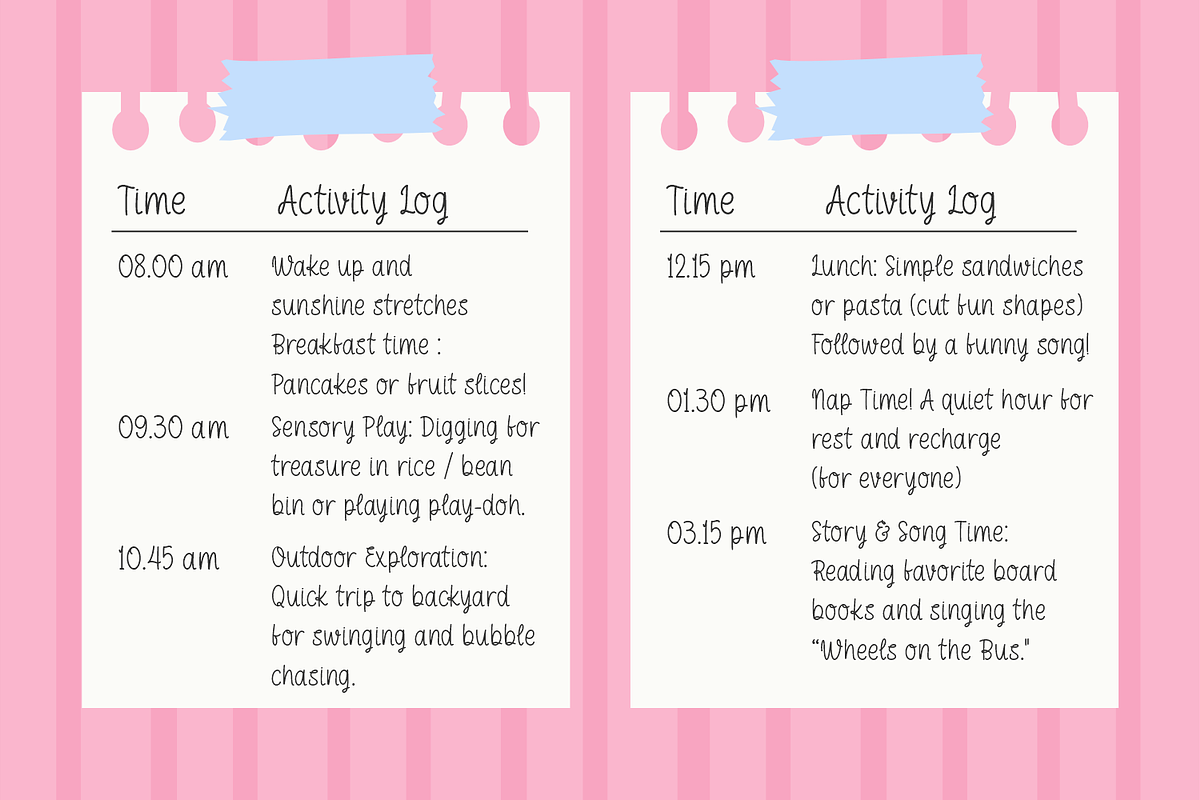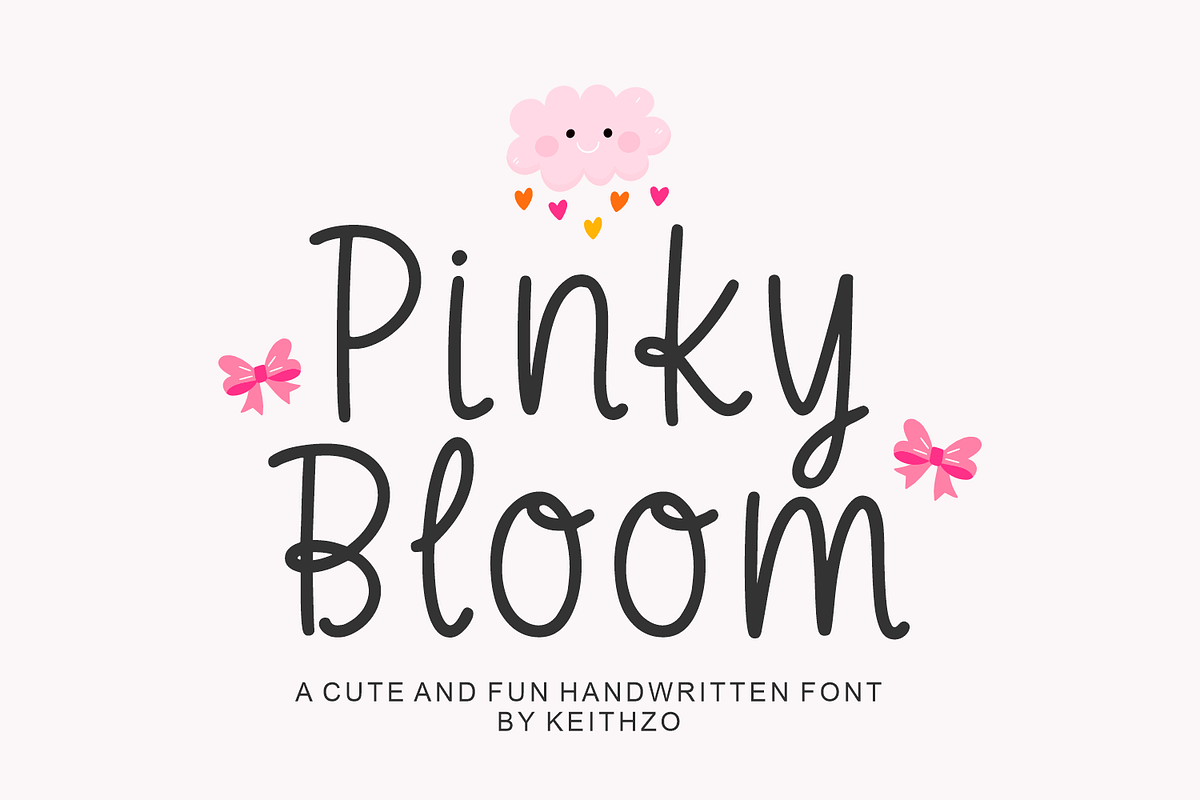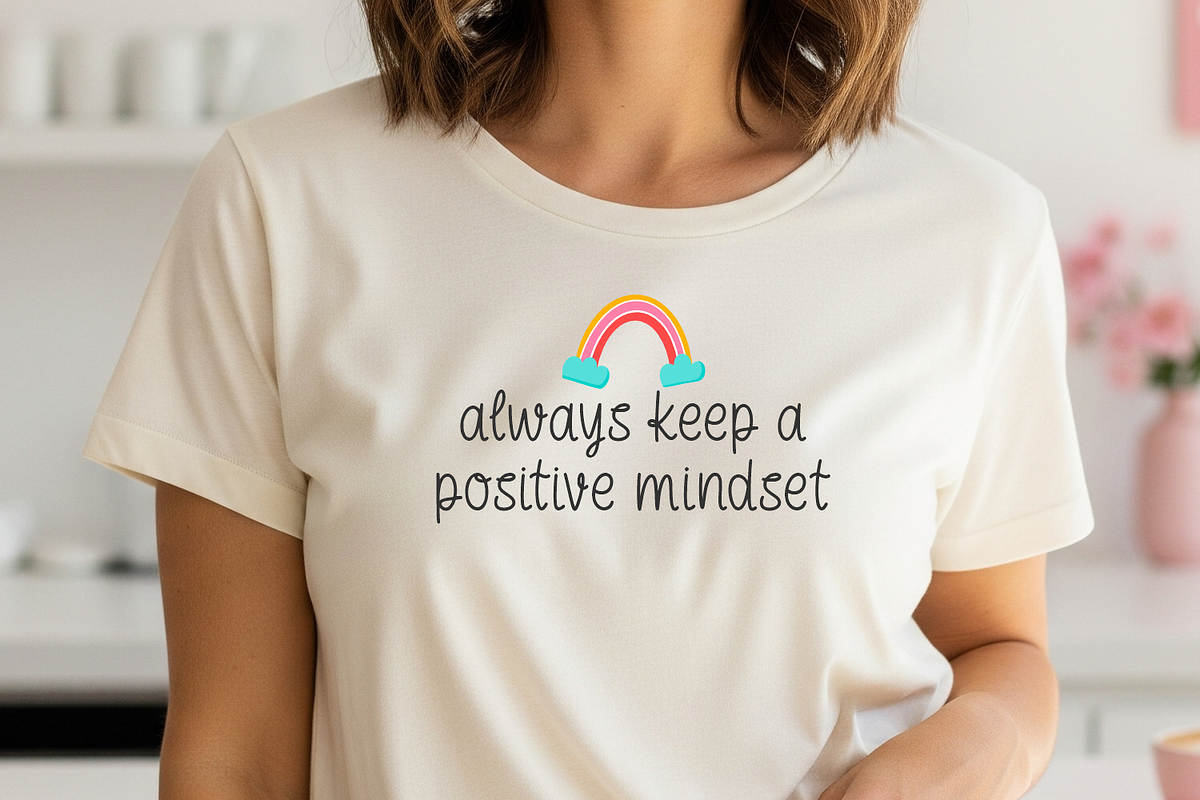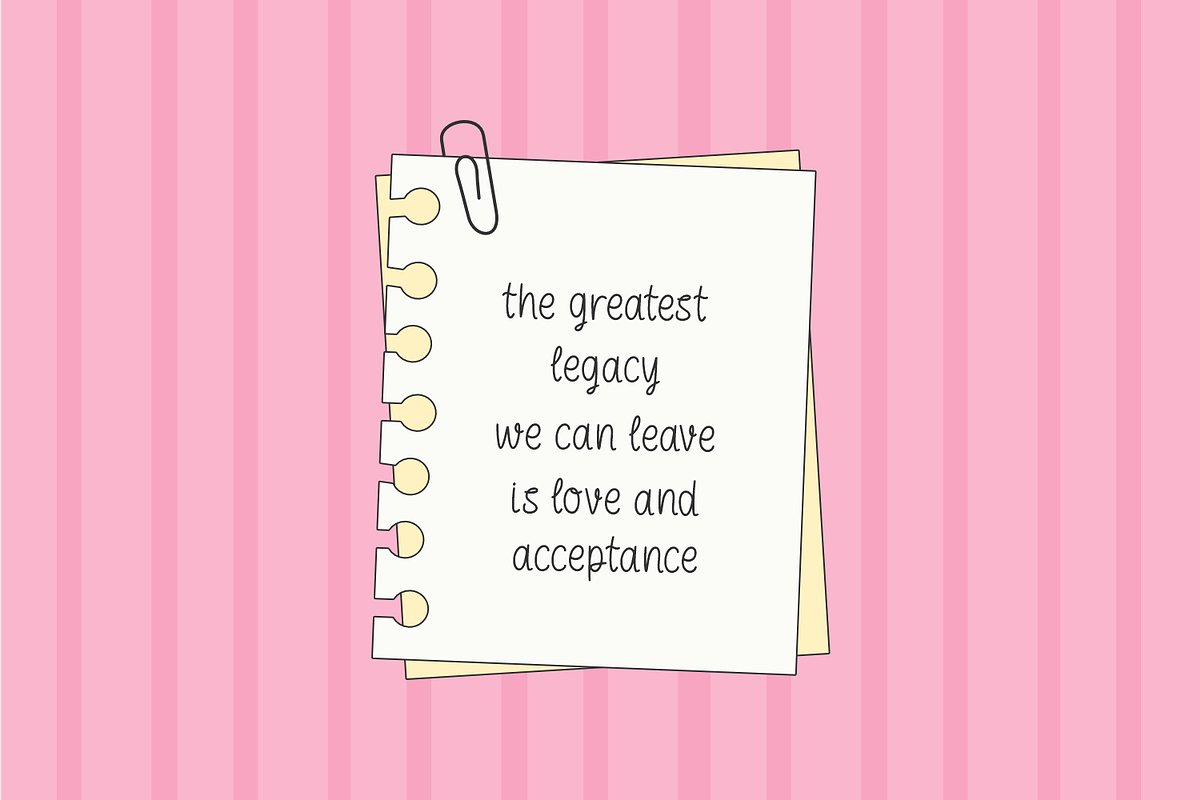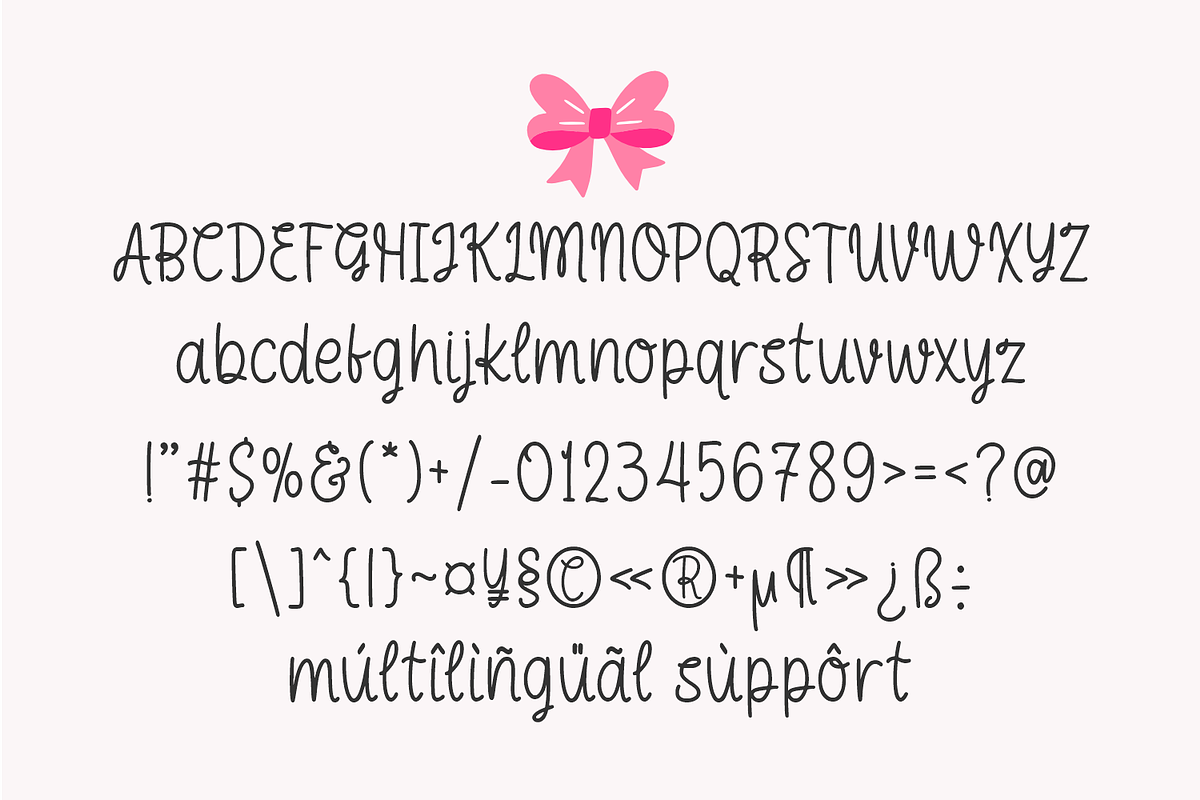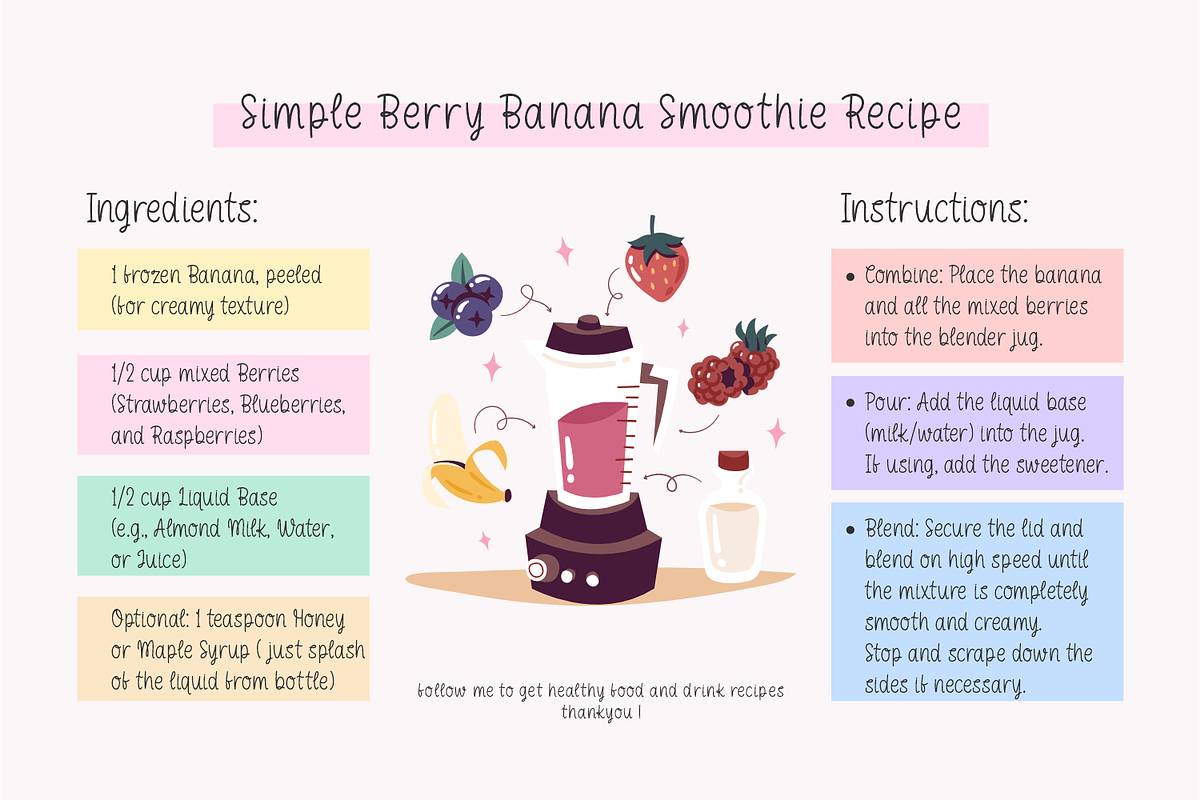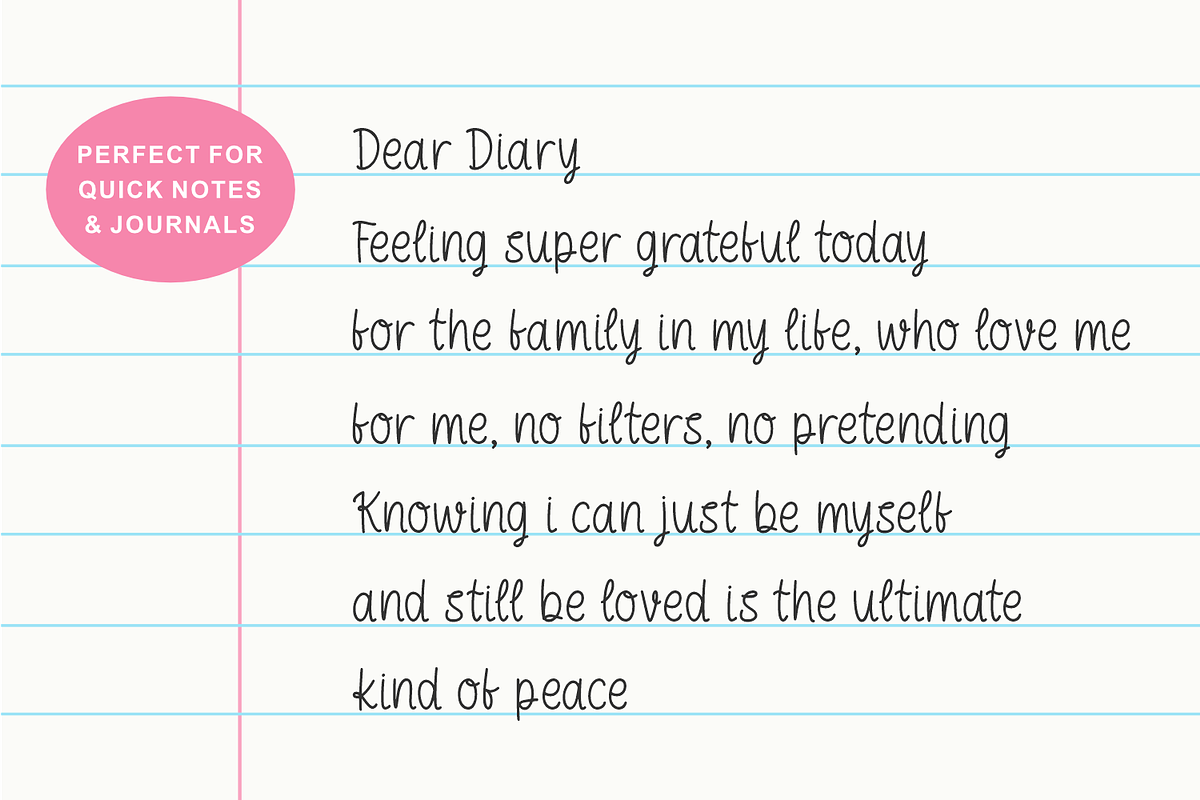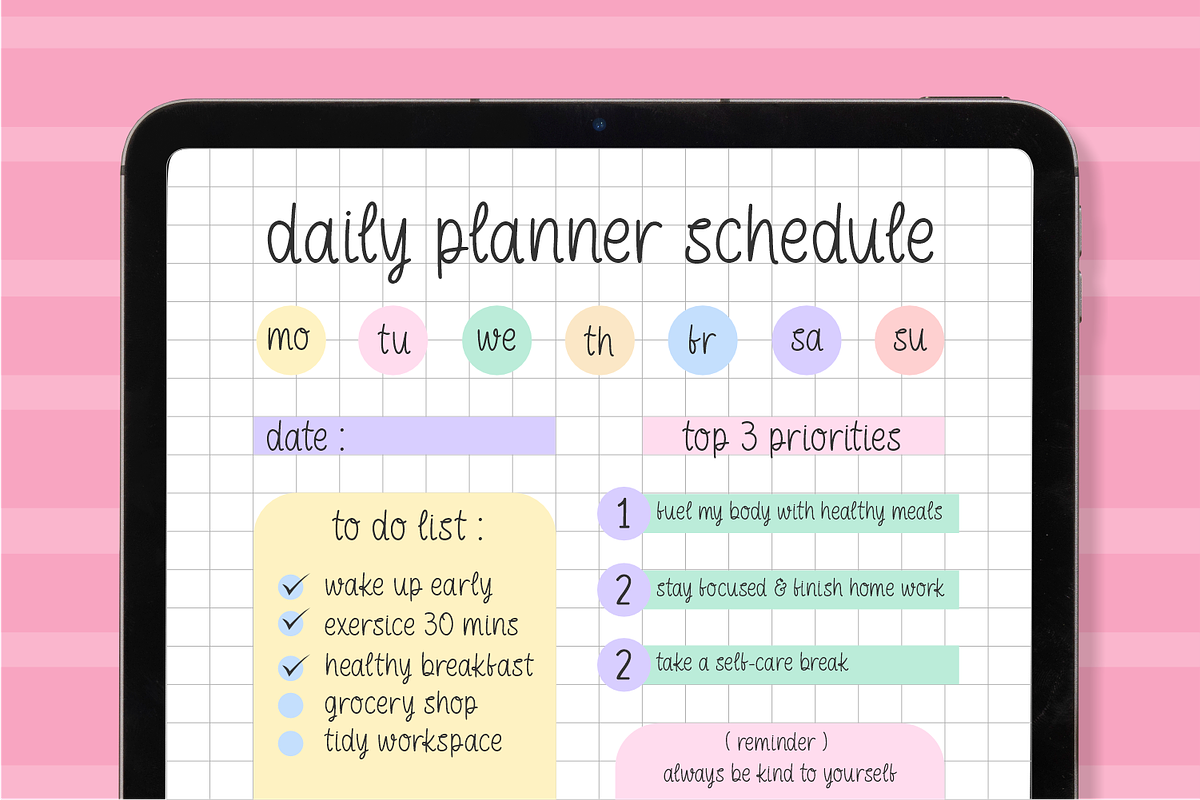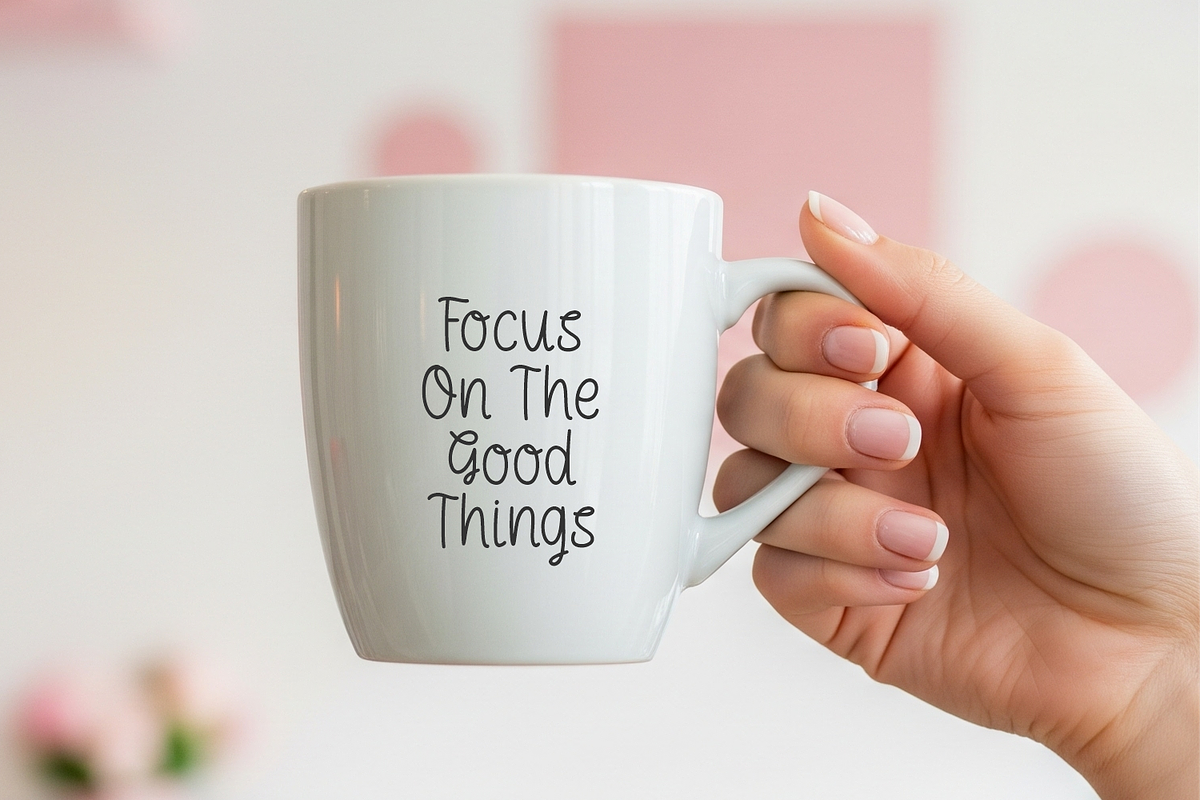
Pinky Bloom - Valentine's Font
Introducing Pinky Bloom, a charmingly fun and relaxed handwritten font designed to add the magic of joy to your designs. This delightful handwritten script encapsulates the carefree aura of childhood and tender emotion, embodying a playful, buoyant rhythm that makes it effortlessly readable and injects an instantaneous warmth into any design.
Pinky Bloom is an indispensable asset for crafting designs for children’s apparel, educational resources, tender nursery decor, and innovative play packs.This font has the power to infuse some endearment into your festive designs, making it perfect for sentiments like “Be My Valentine” messages, wedding invitations, and anniversary presents.
It’s also incredibly versatile, making it an excellent font for scribbling quick notes, journal entries, daily planners, mug designs, and social media graphics. Utilize Pinky Bloom for logos, greeting cards, social media quotes, posters, kidswear, and craft projects, and let your designs burst with creativity!